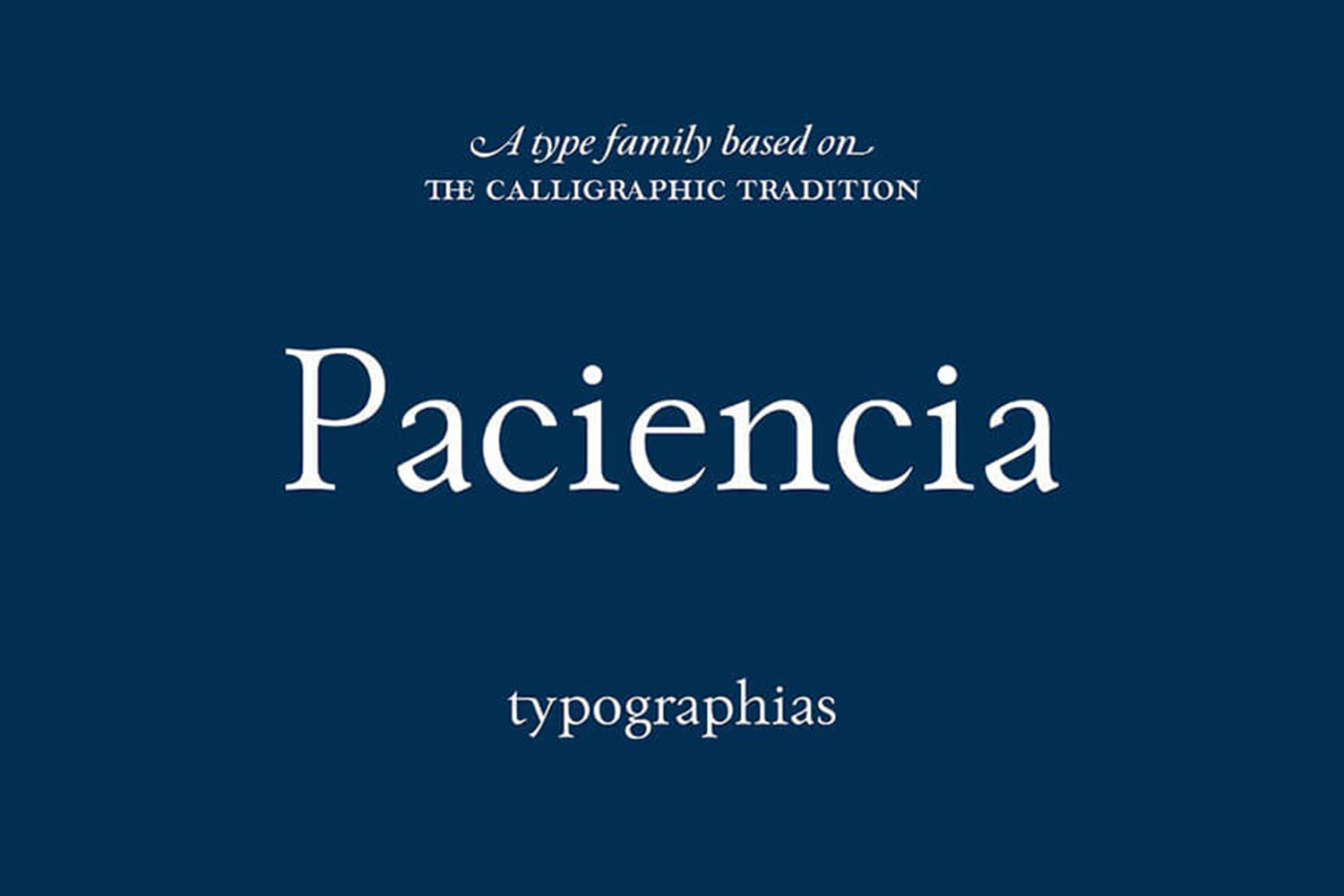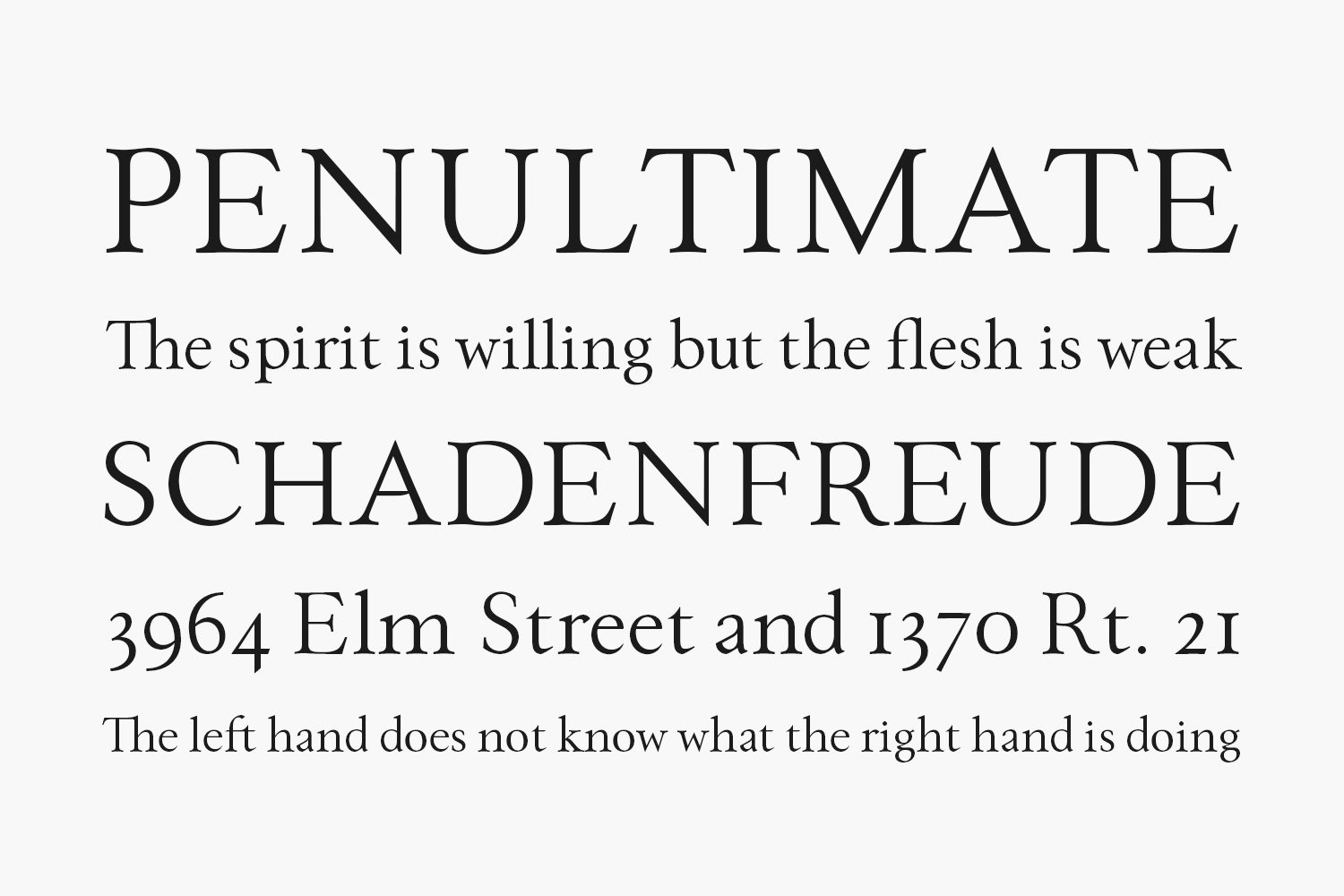
Paciencia Free Font is a humanist serif text family, with strong roots in the calligraphic hand, coming out of sketches made with the broad nib pen.
Designed by Typographias